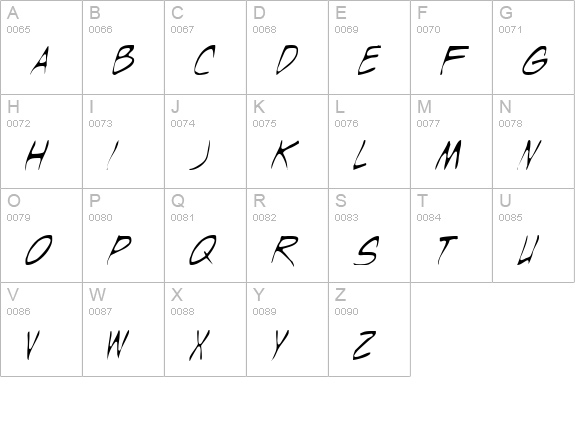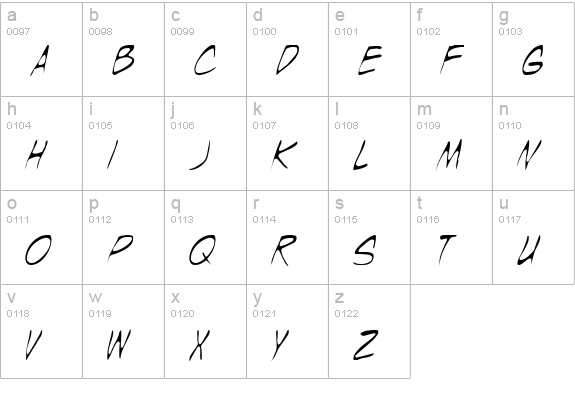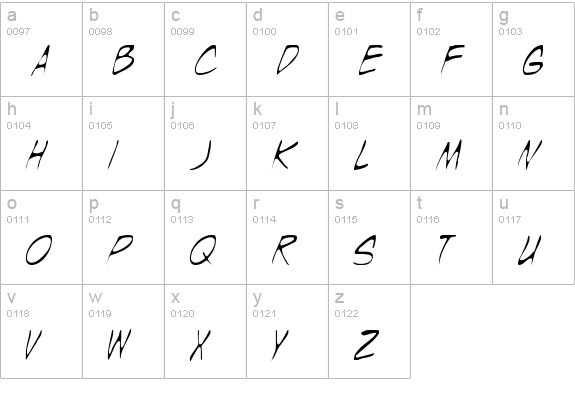
Wyld Stallyns Thin Font Details
Wyld Stallyns Thin is a delicate, low-contrast variant in the Wyld typeface family \xE2\x80\x94 well suited to fashion editorial, minimal branding, and high-contrast display.